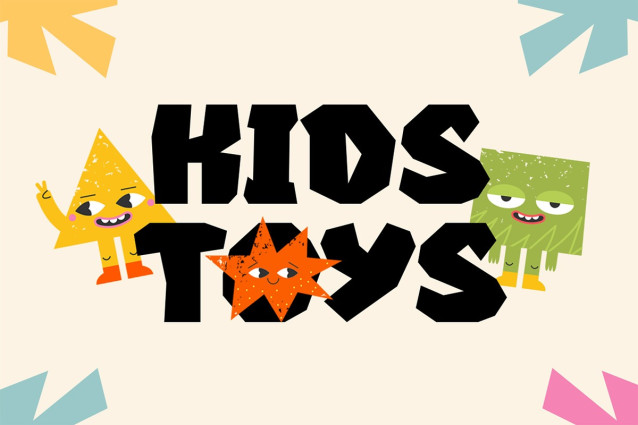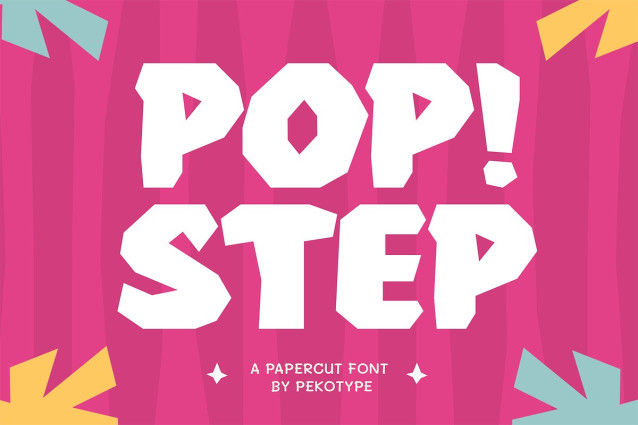
Popstep Display Font
Popstep Display Font – Fun Bold Papercut Font Bring a playful spark to your designs with Popstep, a bold and unique display font inspired by papercut style. Its fun and chunky shapes make it stand out, adding personality and energy to any project.
Perfect for branding, logo design, packaging, posters, children’s books, social media, marketing, and promotional materials, Popstep is versatile and eye-catching. Whether you want a quirky headline or a bold statement, this font will make your designs unforgettable.
The font includes uppercase and lowercase letters, numbers, punctuation, and multilingual support, giving you everything you need for both digital and print creations.